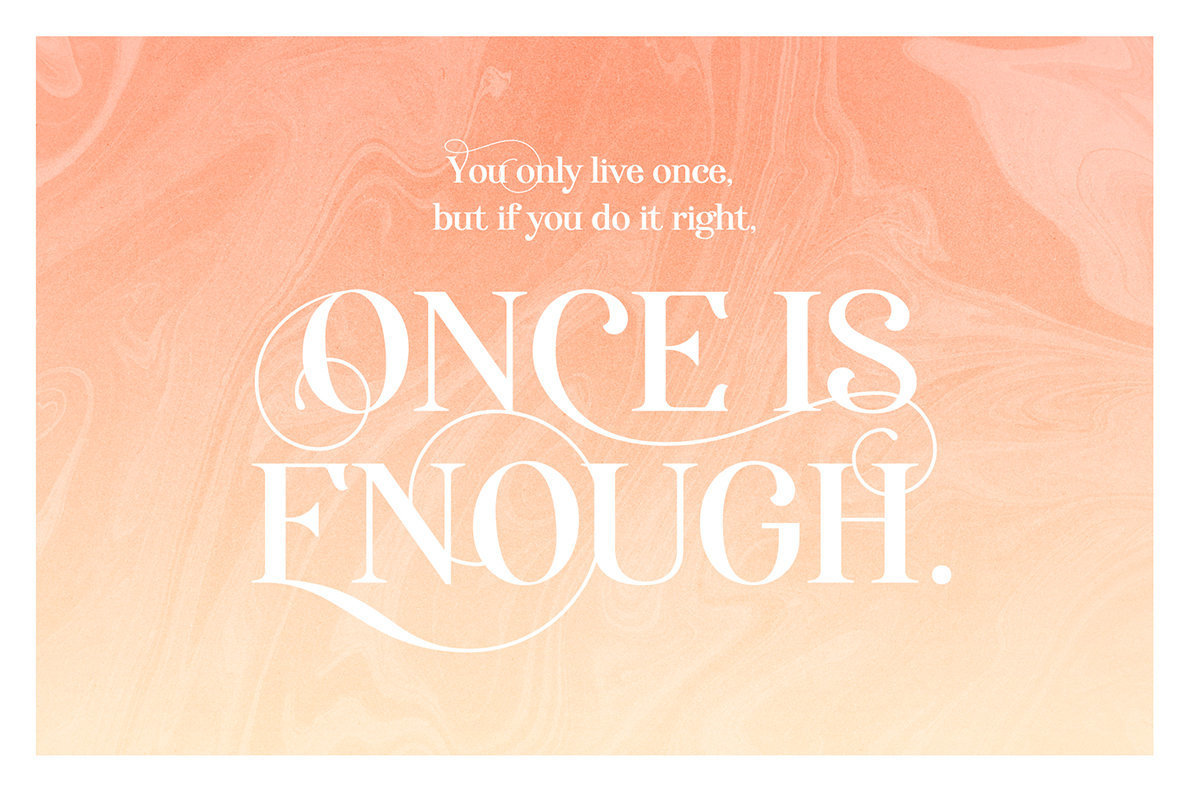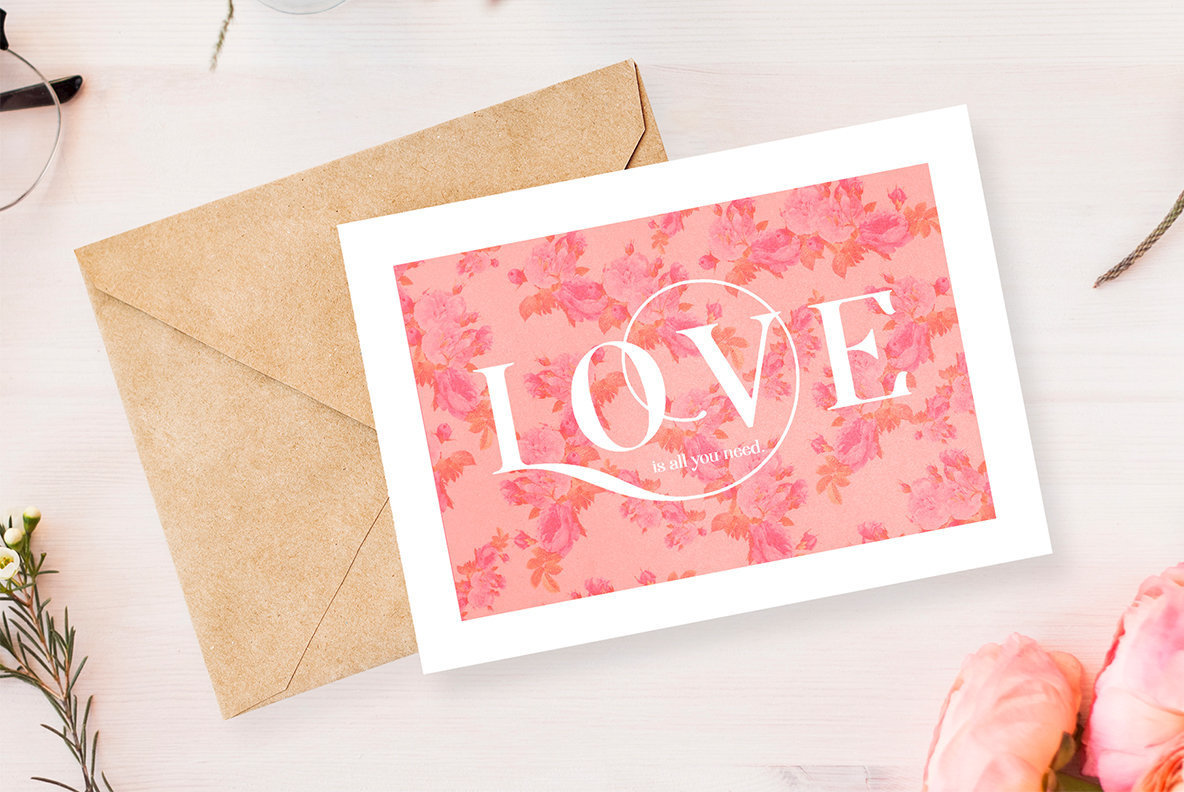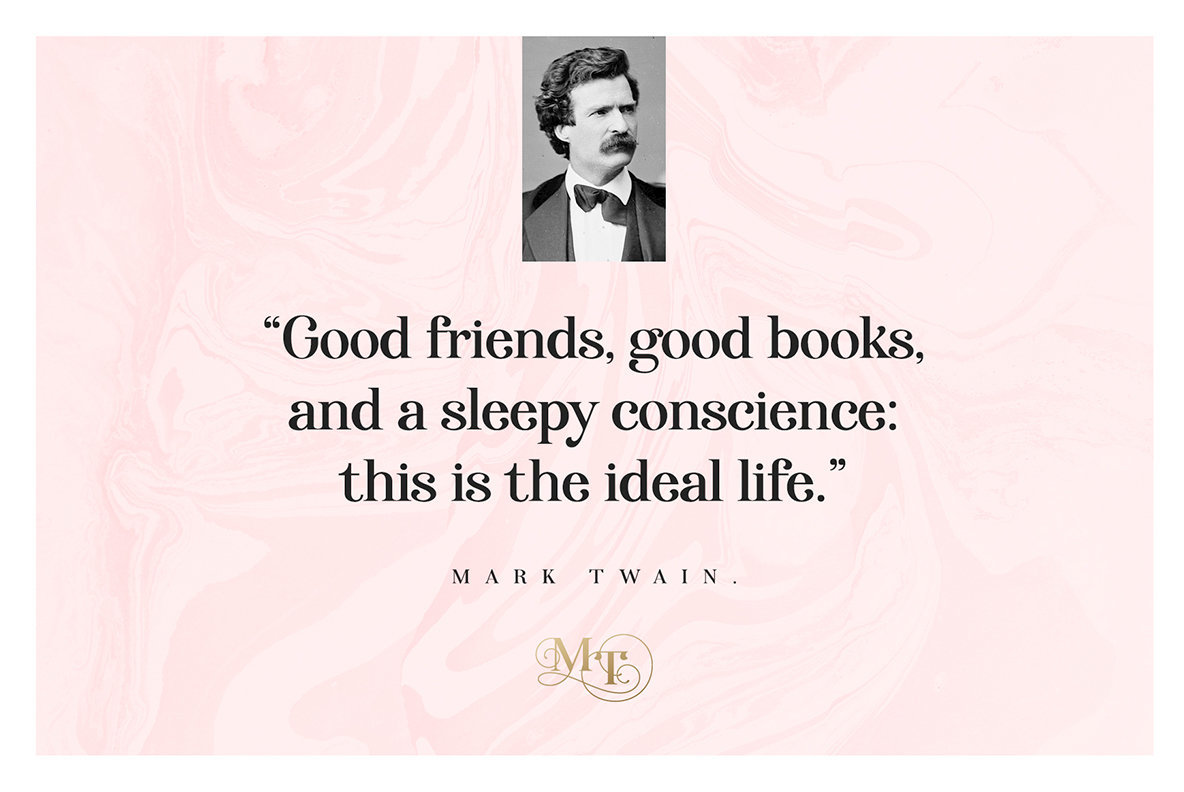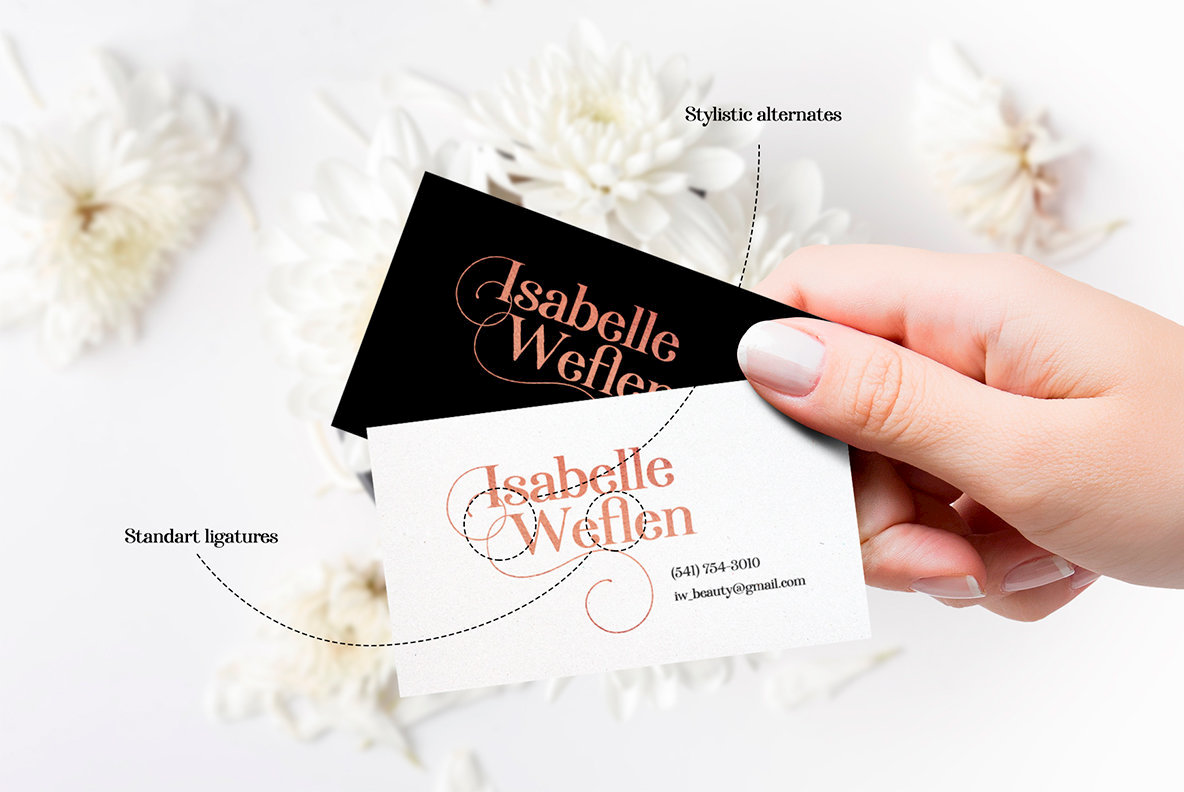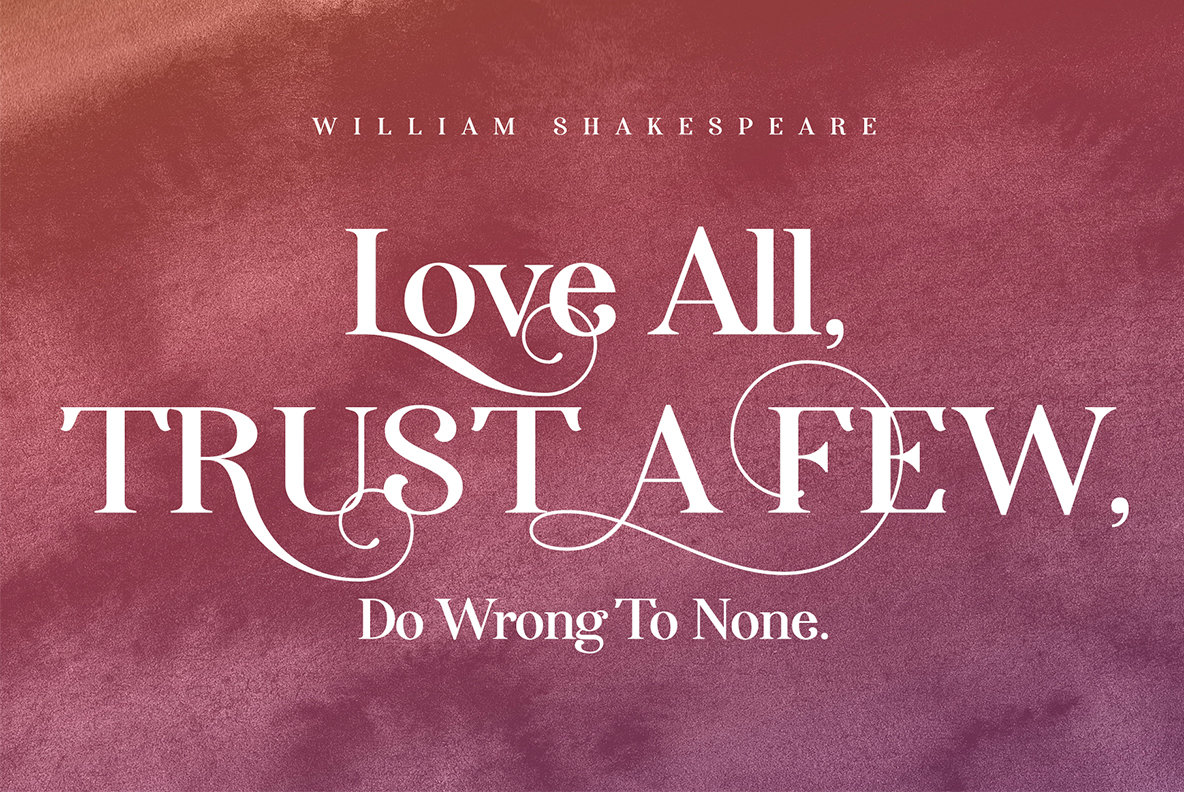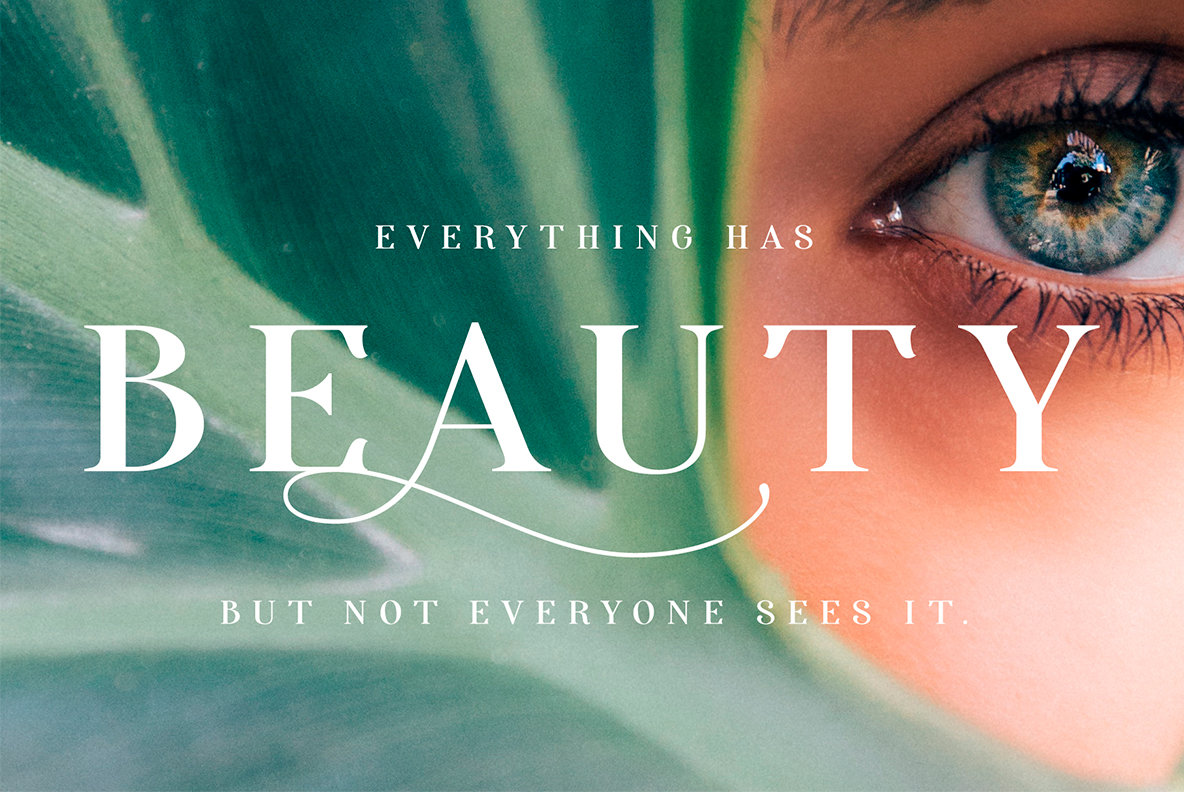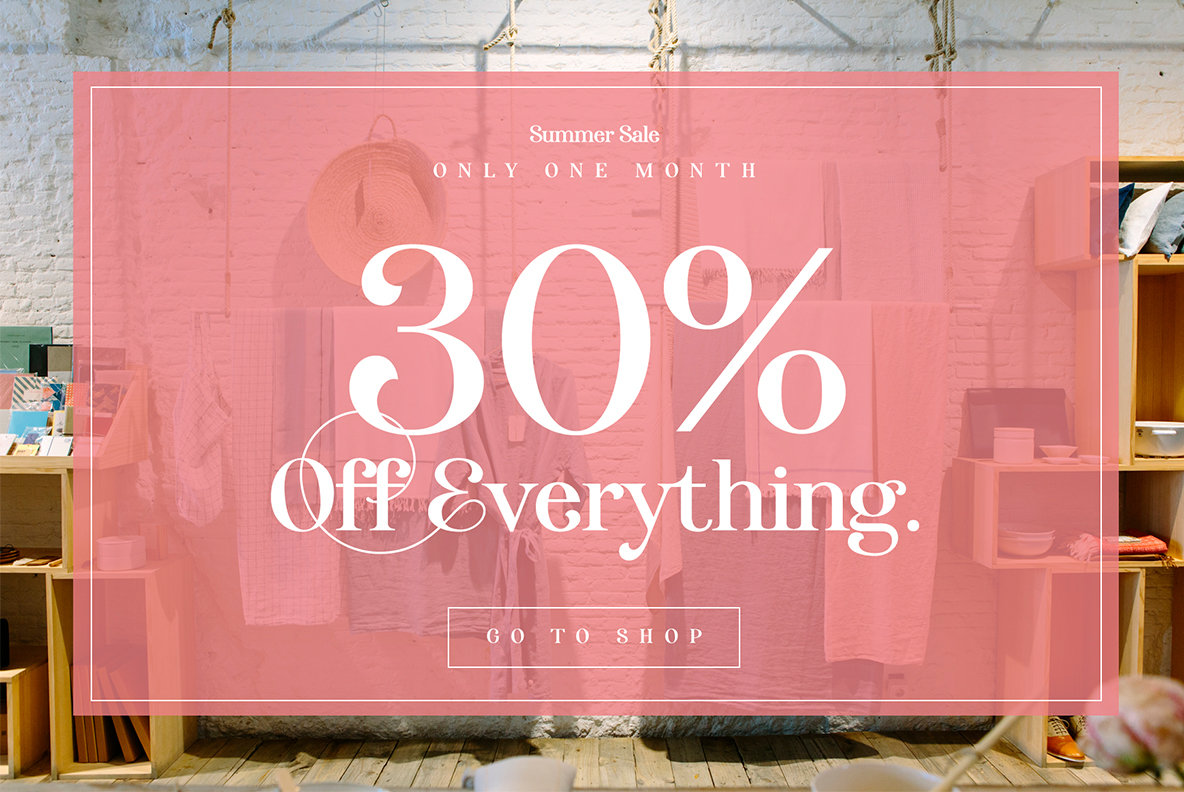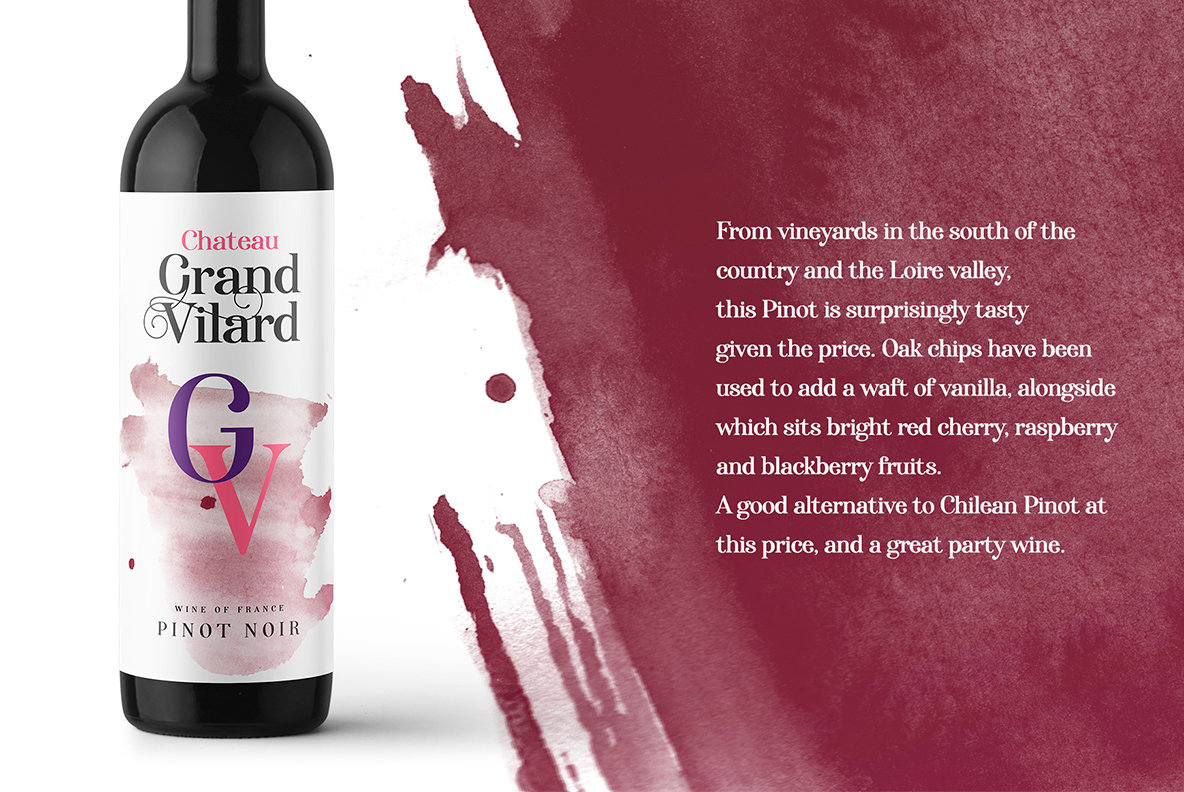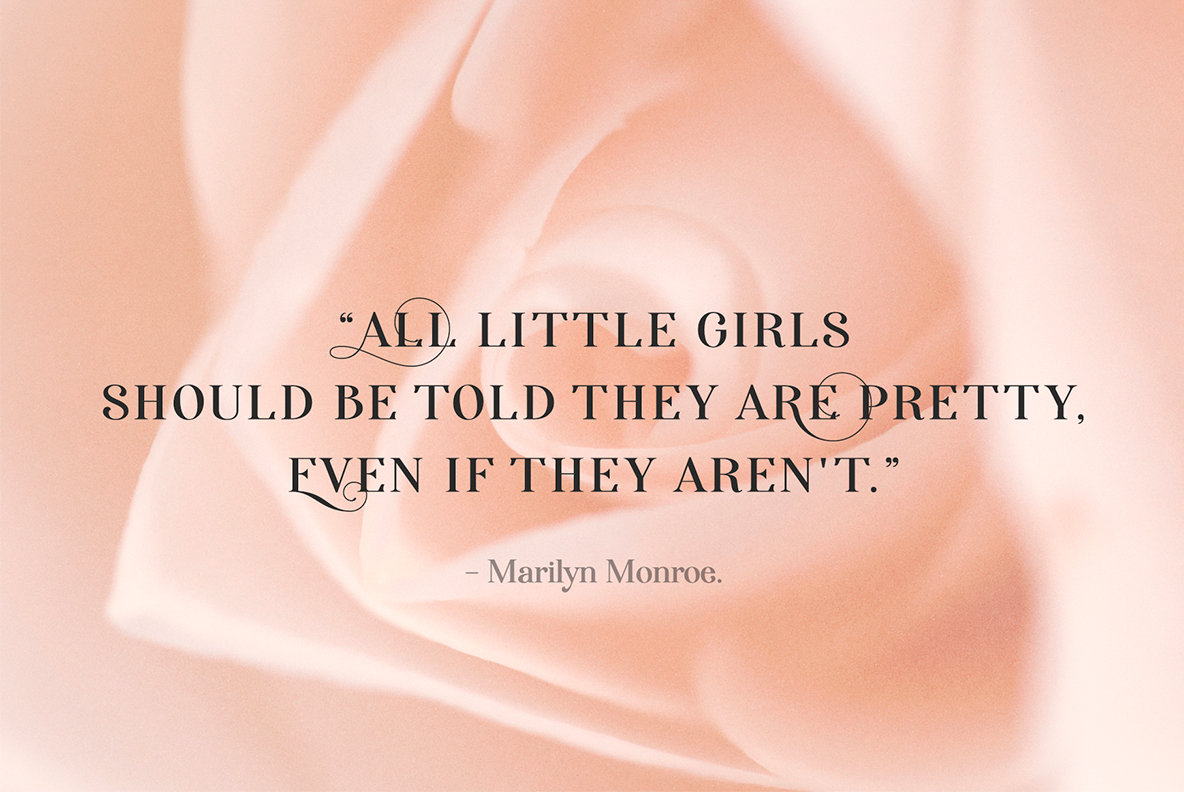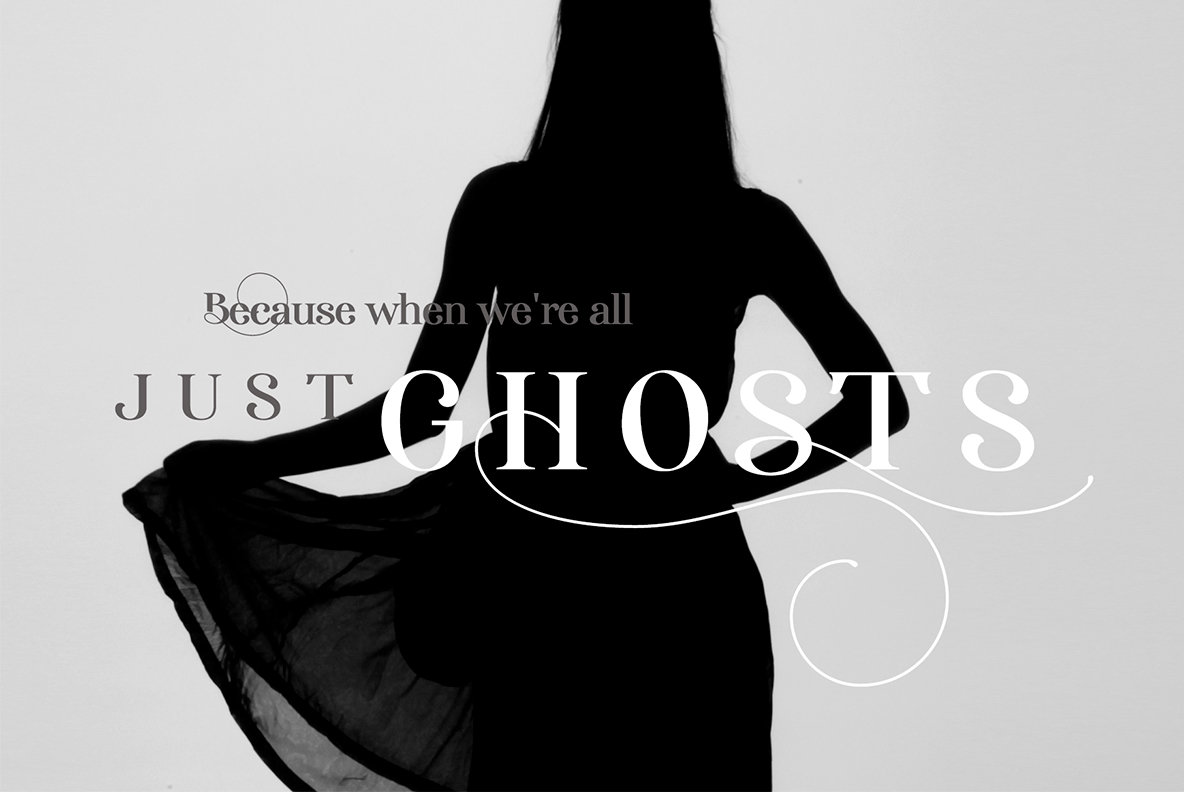
Afterglow Font
Afterglow captivates with its stylish elegance and high-contrast lines, offering a versatile choice for various design projects. This serif typeface by Vintage Voyage Type Foundry boasts a multitude of stylistic alternates, including swashes for extra flair—some letters showcase up to 12 different options. Utilize capital letters for strong, refined headers and quotes, or mix caps with lowercase for subheaders and block texts. Perfect for enhancing art and beauty blogs, apparel designs, websites, posters, magazines, cards, and logos.Afterglow: Elegant Serif Typeface with Stylistic Alternatives